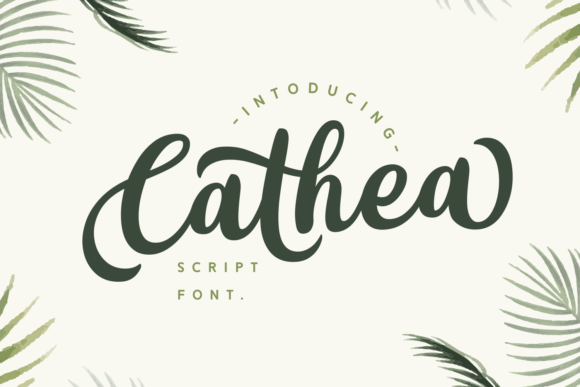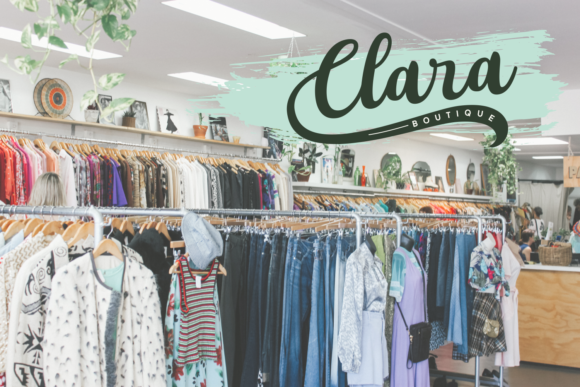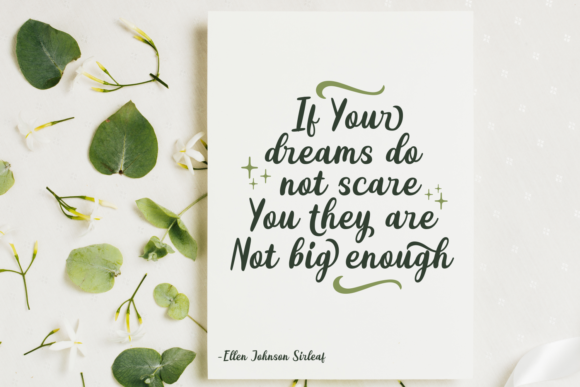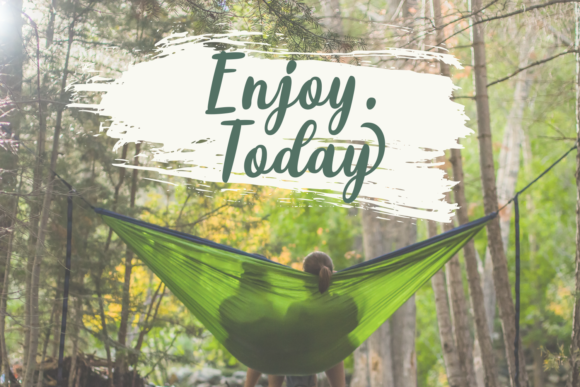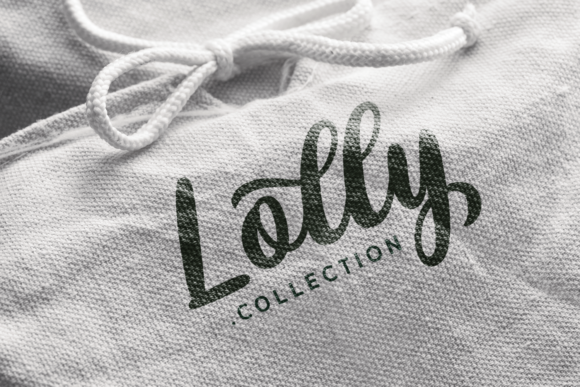
HomeScript FontsCathea Font Script Fonts Cathea Font FacebookXPinterestWhatsApp Cathea Font Poster 2 Cathea Font Poster 3 Cathea Font Poster 4 Cathea Font Poster 5 About Cathea Font Cathea is a bold & curvy script font with exciting character. Get inspired by its friendly appearance! DOWNLOAD ON CREATIVE FABRICAThis font is sold and delivered by Creative Fabrica. Font Canyon may earn a commission if you buy through this link. People also explored Phosfor Font Family | 3 Styles Font Barbica Garden House Font Frog Spots Font Smooth Font Salsabela Script Font Honey Jar Font Delfigray Font Betlast Font 278 0 TagsCathea Font Previous articleAmeliya FontNext articleGaston Villa Font LEAVE A REPLY Cancel reply Comment: Please enter your comment! Name:* Please enter your name here Email:* You have entered an incorrect email address! Please enter your email address here Website: Save my name, email, and website in this browser for the next time I comment. Personal Use Free Carnivals Personal Use Free Read more about this font Cokobi Personal Use Free Read more about this font Mowgli Personal Use Free Read more about this font Happy Camping Personal Use Free Read more about this font BLOG Transform Your Website: Elevate Your Typography with 7 Best Web Font Generators Are you ready to transform your website's typography from ordinary to extraordinary? Great! Today, we're diving into the world of web font generators, which... Exploring Font Trends Elegant Wedding Invitation Fonts – Handwritten & Script Fonts Free vs Paid Fonts: Why Investing in Premium Fonts Is Worth It